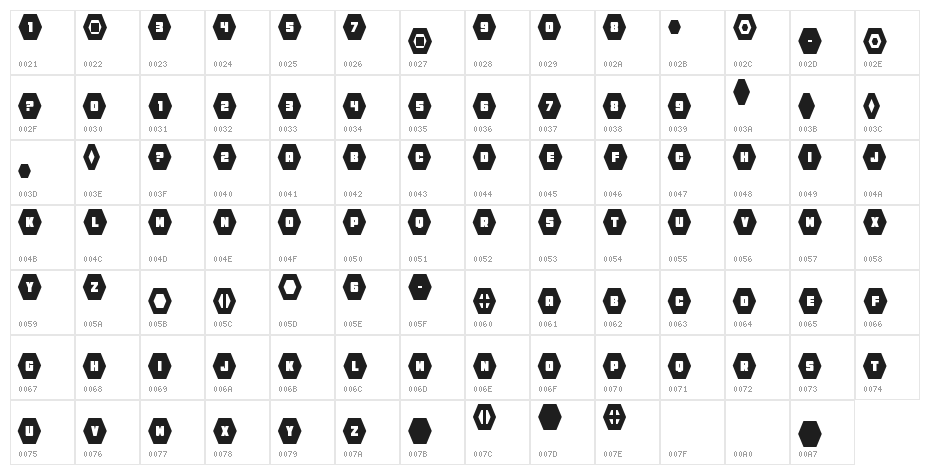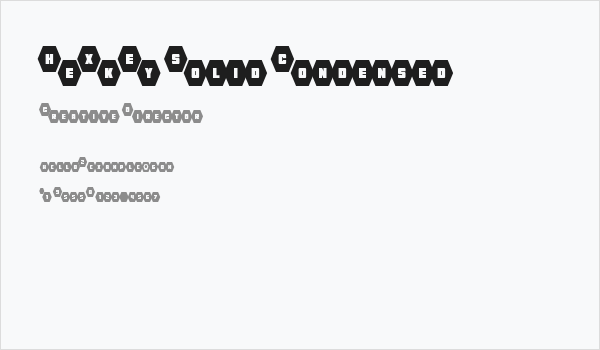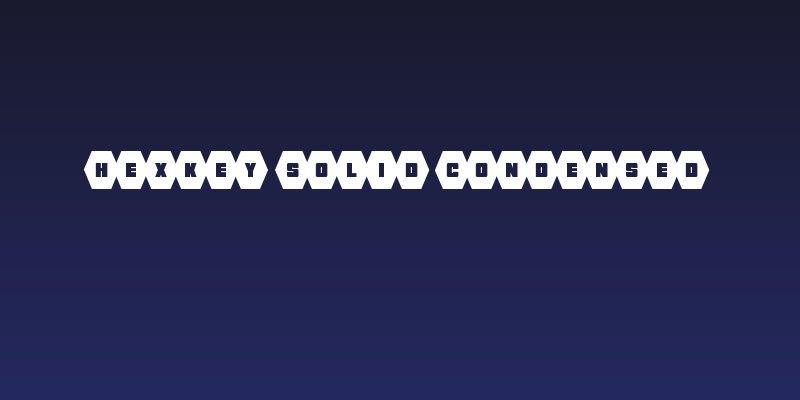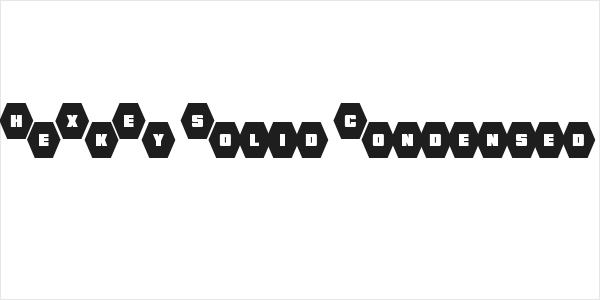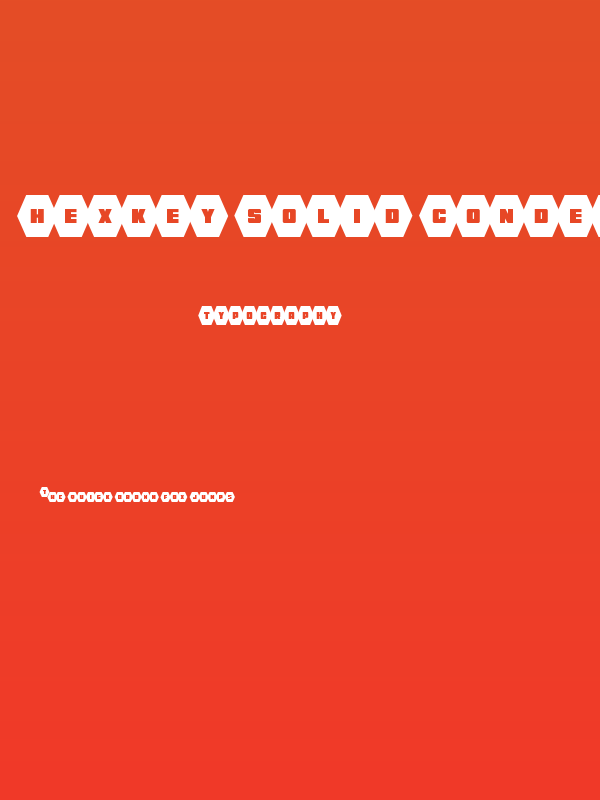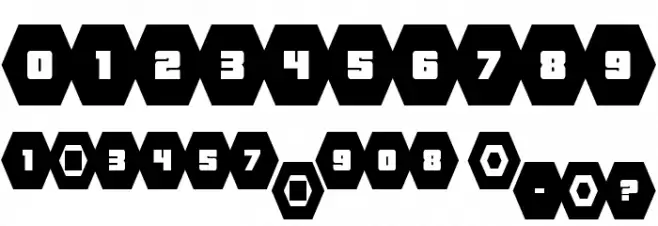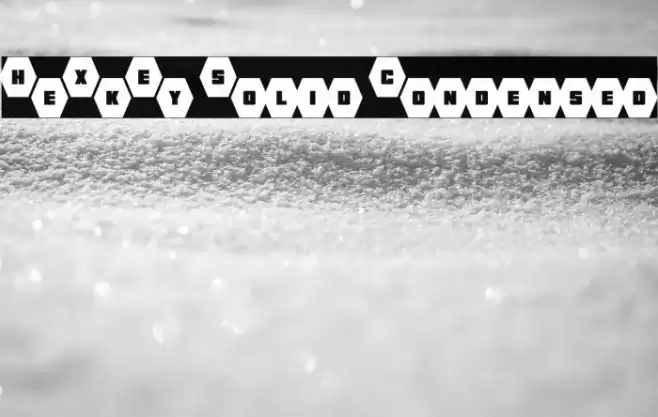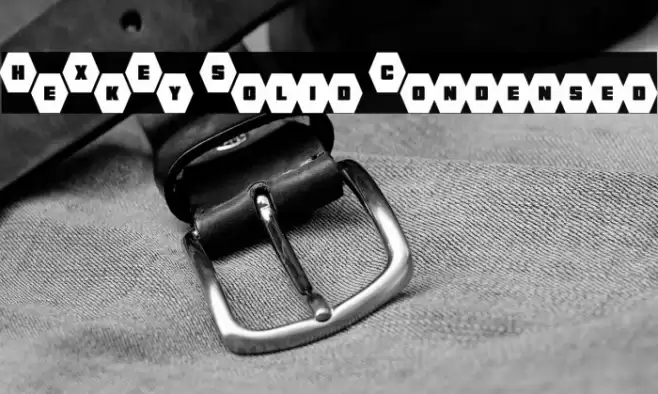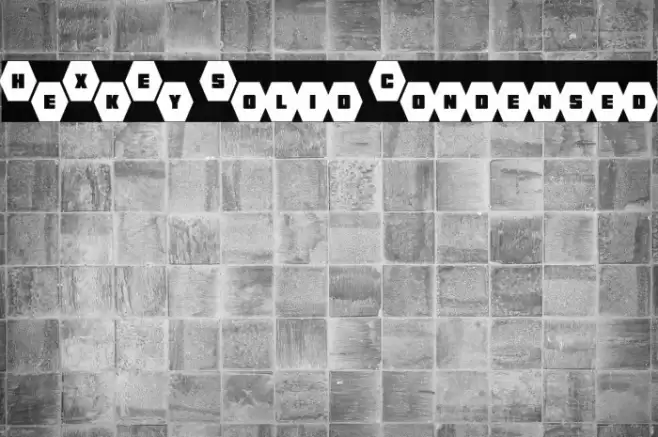
HeXkEy Solid Condensed Font
This font features a bold, geometric design with each character enclosed within a hexagonal shape, creating a unique and striking appearance. The solid, condensed style emphasizes a modern and futuristic aesthetic, making it stand out in any design. The characters are uniformly bold, with consistent stroke thickness and no variation in weight, contributing to a cohesive look. The hexagonal enclosures add a decorative element, while the condensed width allows for efficient use of space. This font is ideal for projects that require a strong visual impact and a contemporary feel.